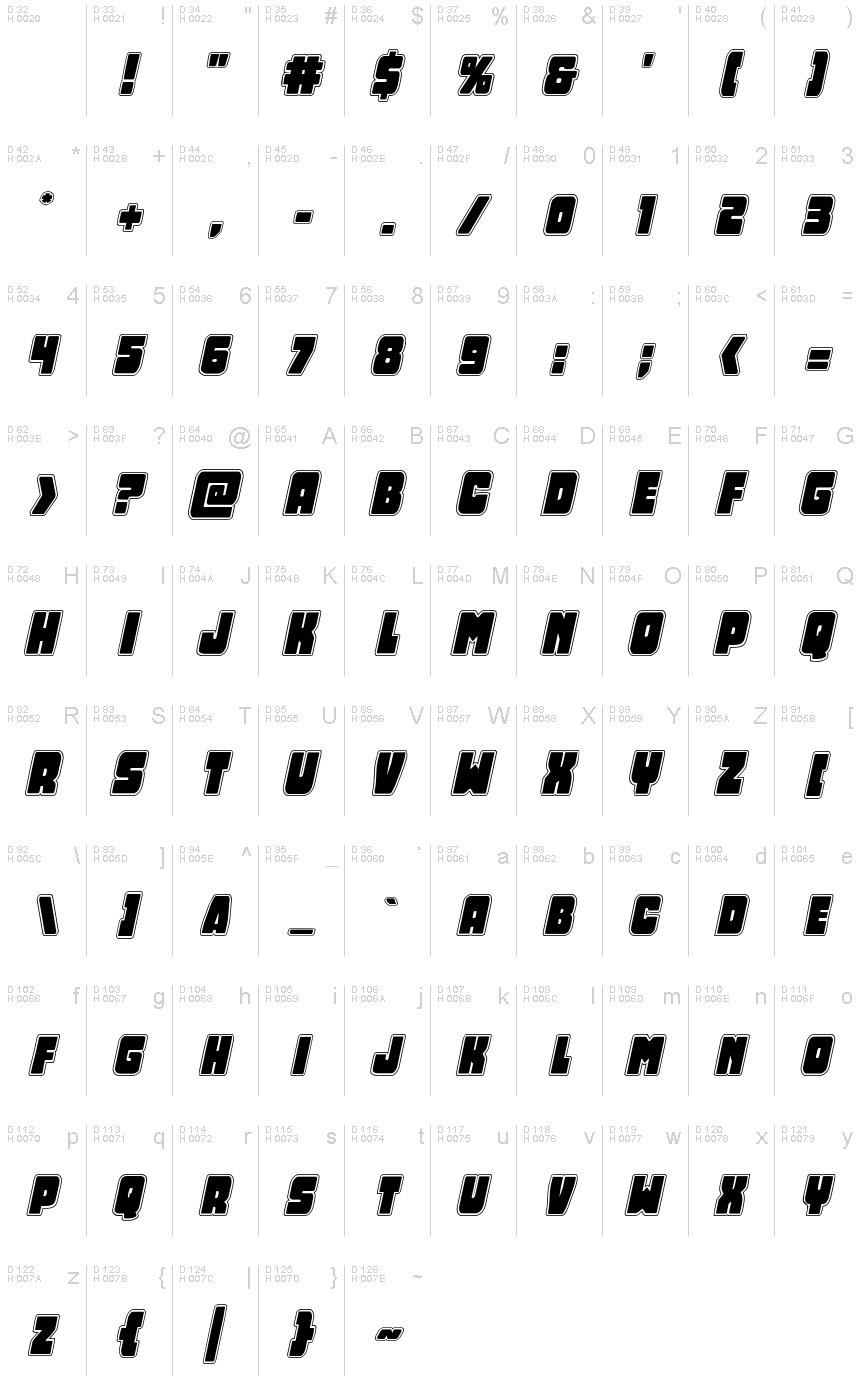
Opus Mundi Academy Italic
Opus Mundi is a bold, condensed display font that commands attention. Designed by Daniel Zadorozny, its Italic style exudes a sense of authority and dynamism. The sharp, angular letterforms and heavy strokes create a striking visual impact, making it well-suited for headlines, branding, and other high-impact design applications.
The font's condensed width allows for compact, space-efficient layouts without sacrificing legibility. Its versatility lends itself to a wide range of design contexts, from modern editorial pieces to industrial-inspired graphics. Opus Mundi Italic's unique aesthetic could elevate the visual identity of businesses, publications, or any project seeking a bold, distinctive typographic statement.